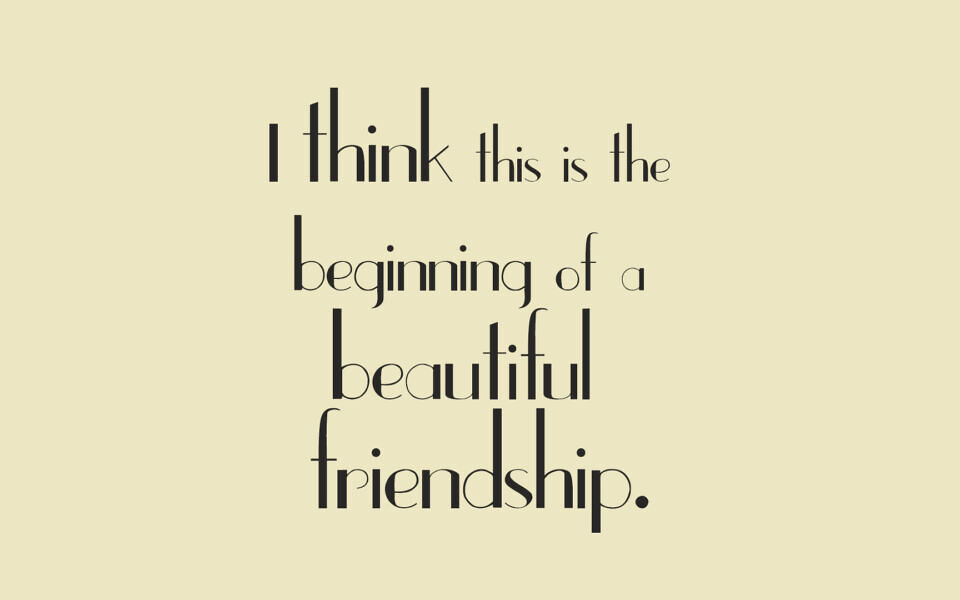
Upper East Side is a sophisticated serif font by David Rakowski. With its clean lines, classic proportions, and subtle Art Deco flair, it exudes timeless luxury and refinement.
Perfect for branding, editorial design, or high-end invitations, this font offers a polished, upscale aesthetic.